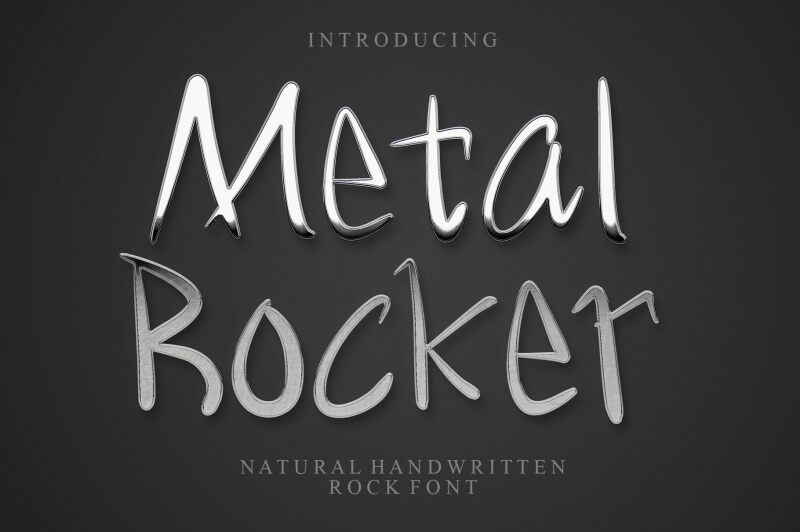
Metal Rocker font by Letterafa Studio is a free handwritten font with a contemporary and expressive style. Energetic and dynamic, this font delivers an edgy vibe suitable to headline any document. Its metallic feel and contrast-driven design make it a distinctive choice for designers looking to decorate their work with original typography.
The expressive nature of Metal Rocker makes it a valuable tool for brands of all sorts. Use it for logo design, advertisement, poster design, web design, video game design, creative apparel, book covers, or what have you. The only limits are your own creativity.